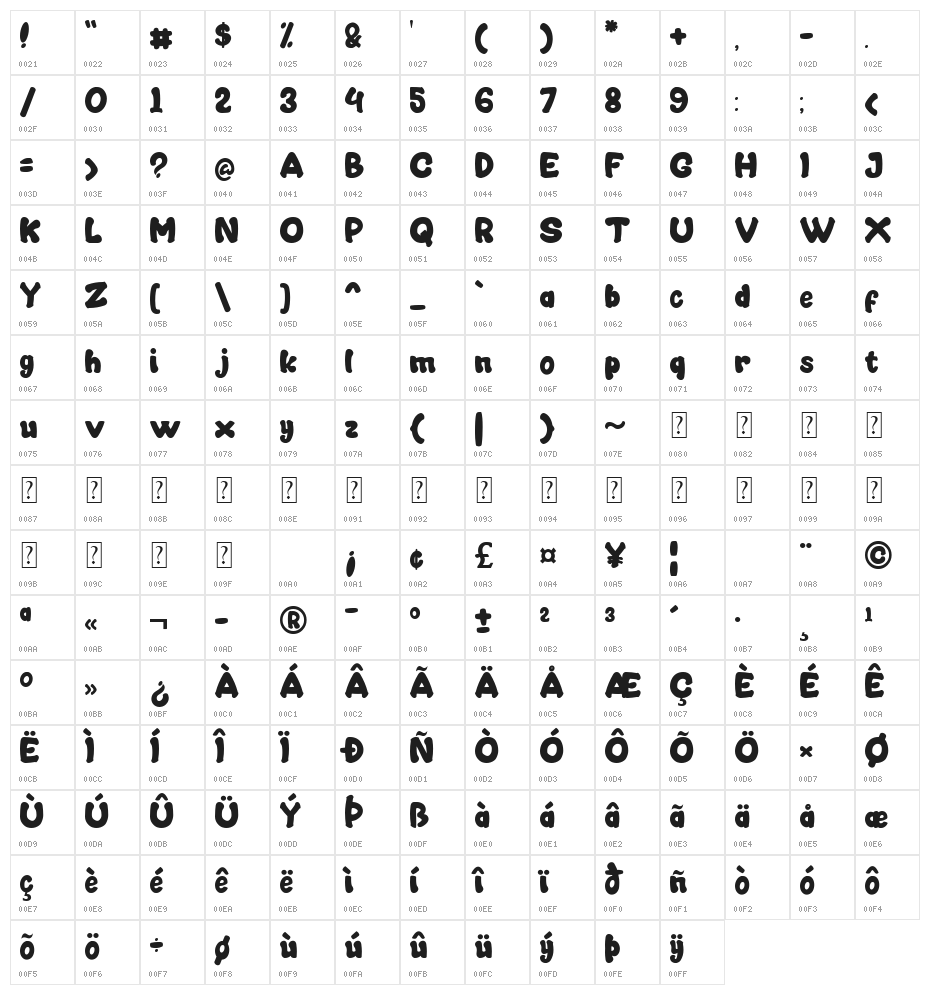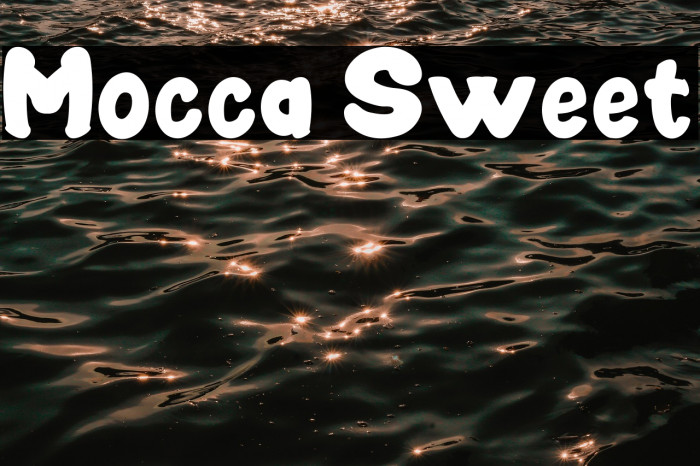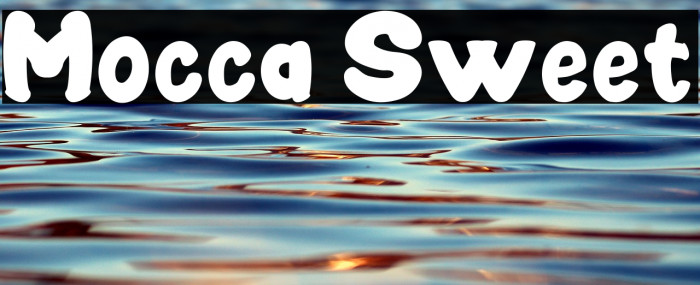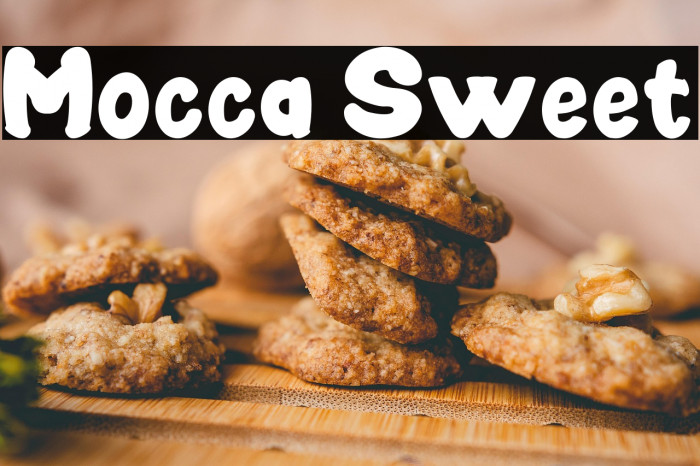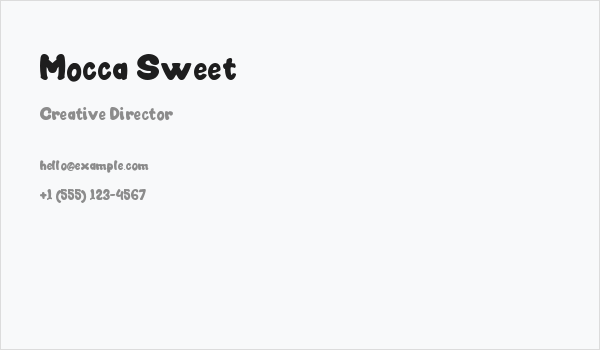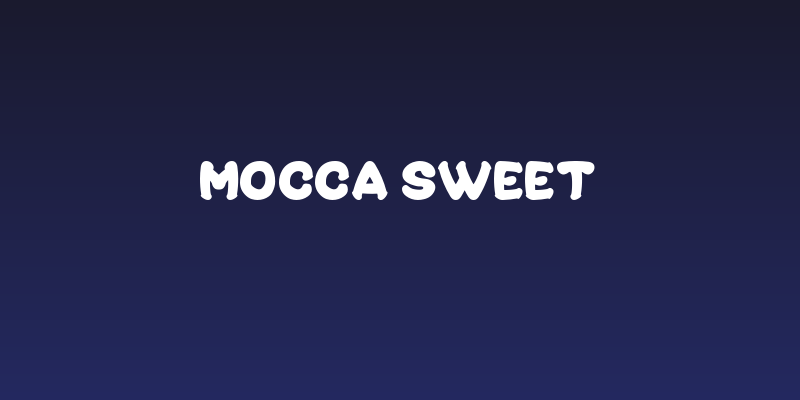
Mocca Sweet Font
Mocca Sweet Description
This playful and bold font features thick, rounded characters that exude a sense of fun and whimsy. The letters are uniformly bold, with a consistent stroke width that gives the font a cohesive look. The rounded edges and bubbly appearance make it ideal for projects that require a friendly and approachable aesthetic. The numbers and special characters maintain the same playful style, ensuring a harmonious design across all text elements. This font is perfect for capturing attention and conveying a sense of joy and creativity.